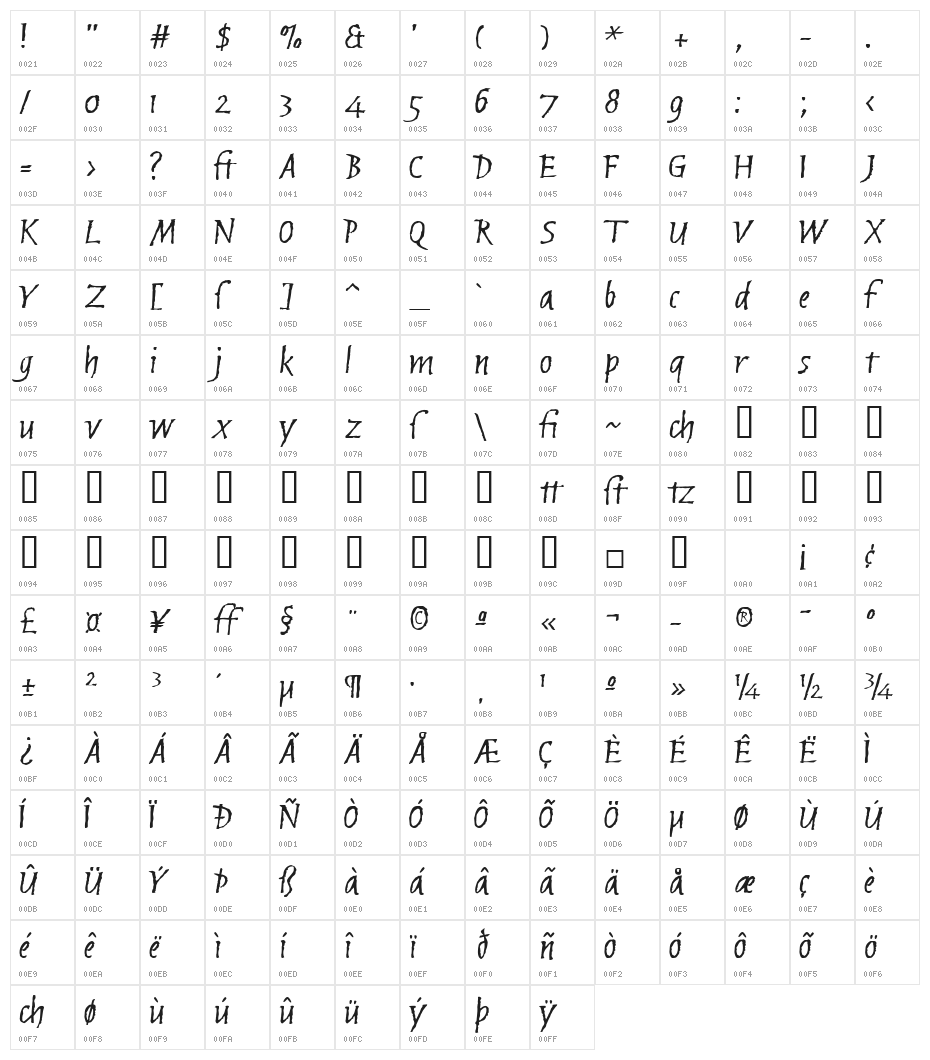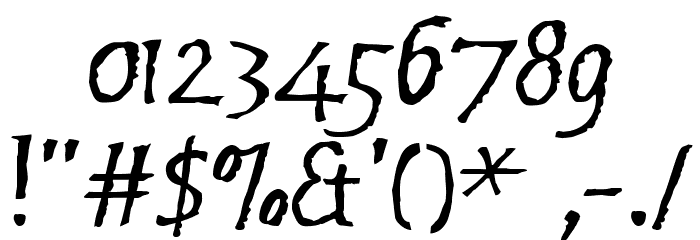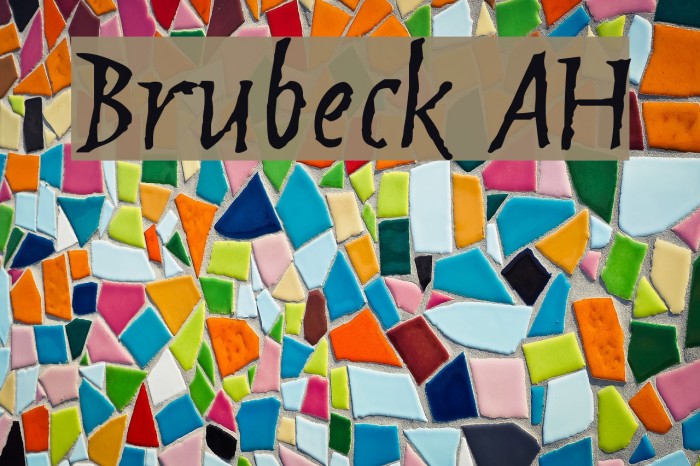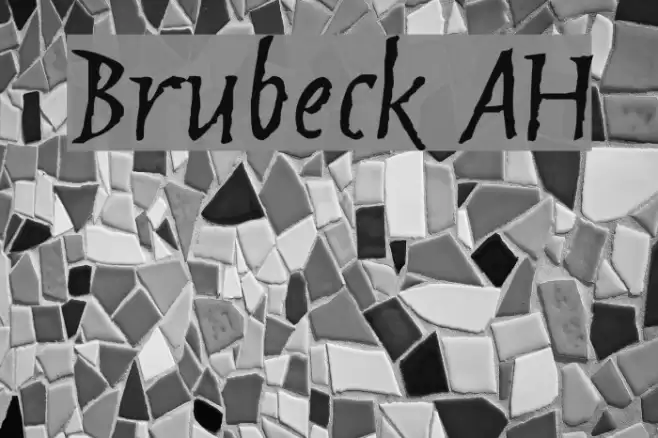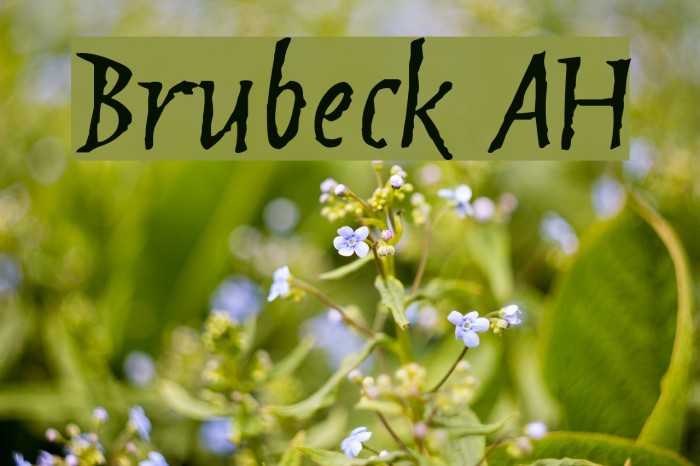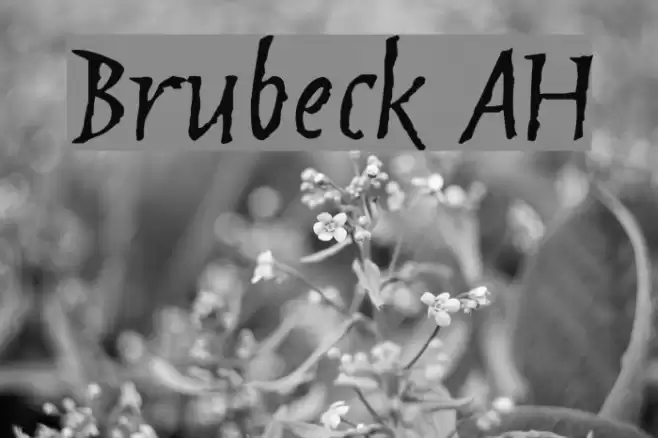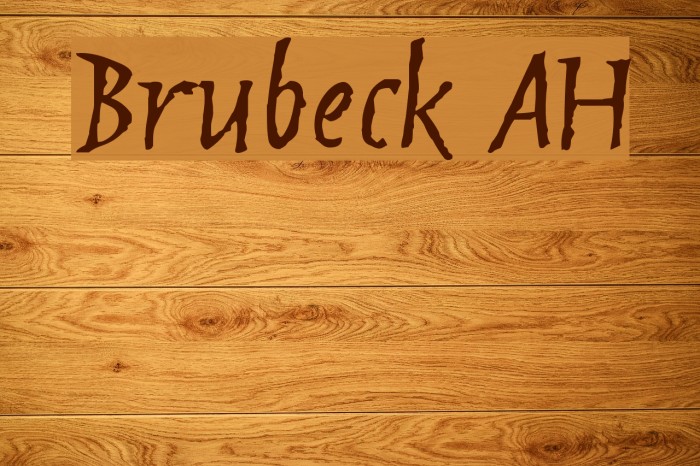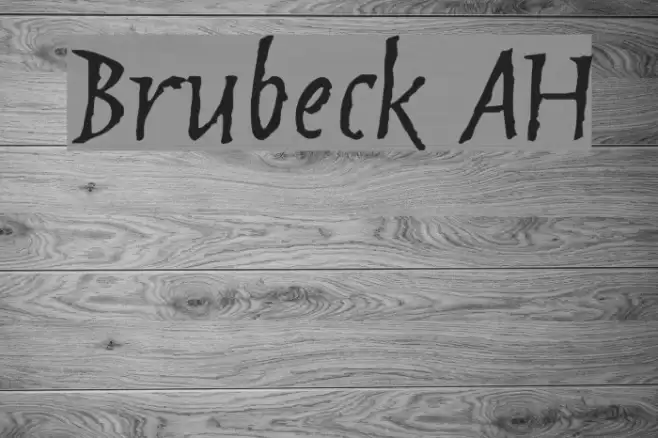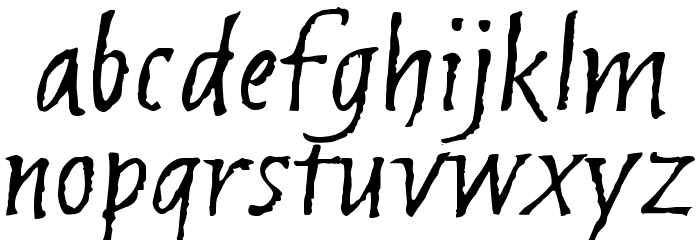
Brubeck AH Font
Brubeck AH Description
This font exhibits a dynamic and expressive handwritten style, characterized by its irregular and organic letterforms. The strokes are uneven, giving it a lively and spontaneous appearance. The uppercase letters are bold and slightly tilted, while the lowercase letters maintain a consistent flow with a slight slant. The numbers and special characters follow the same energetic style, adding to the font's overall charm. This font's unique personality makes it stand out, offering a sense of creativity and individuality.
| Use Case | Logos, Artistic projects, Invitations |
| Proposed Projects | Ideal for creative projects such as invitations, greeting cards, artistic posters, and branding that requires a personal touch. |